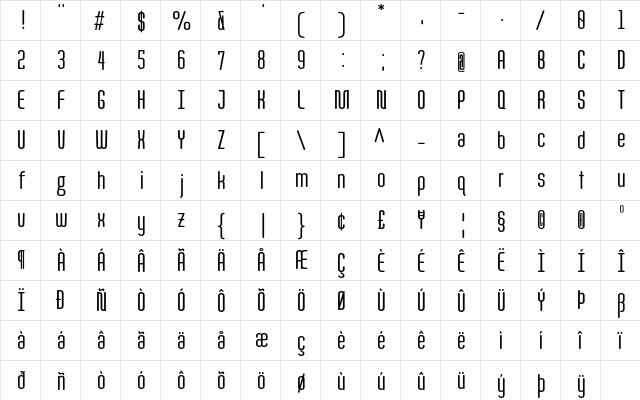
Quota Regular Cond.
| Designer | Ryan Willaismon |
Design Context for Quota Typeface
Quota offers clean, dependable letterforms without strong stylistic allegiance, making it a practical choice for designers who need flexibility. Its narrow stance lets it pack a punch even in space-constrained designs.